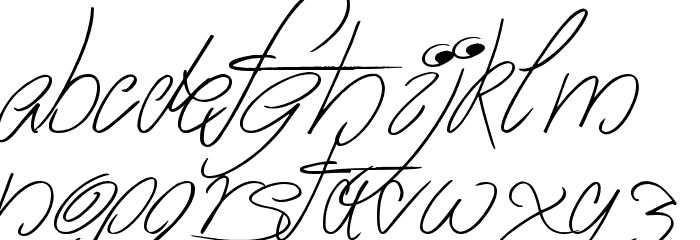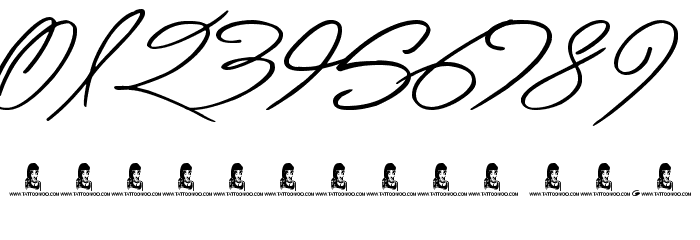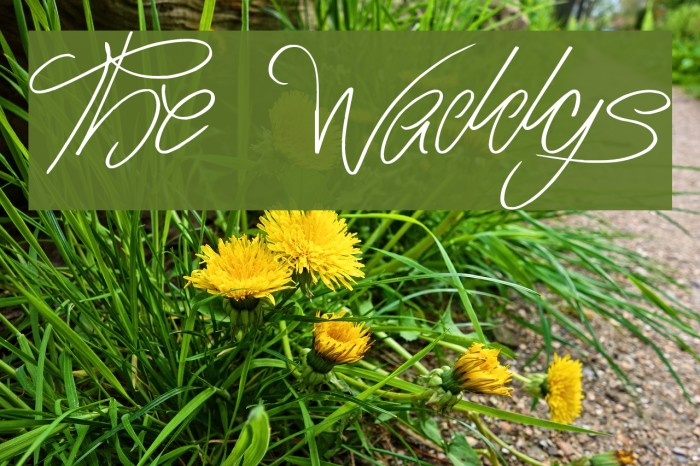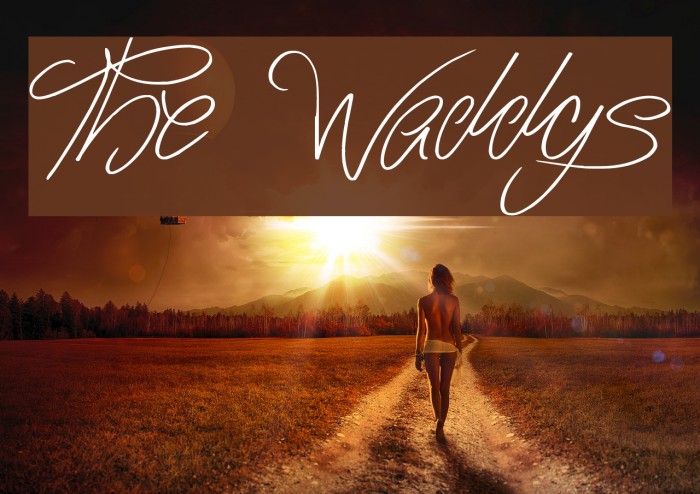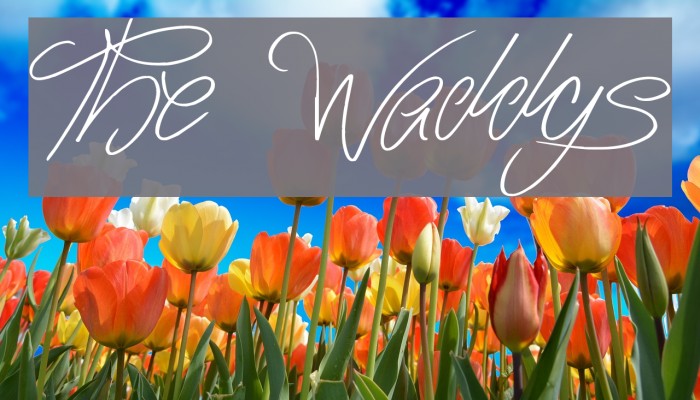
The Waddys Font
This font features an elegant, flowing script style with a handwritten appearance. The characters are connected, creating a sense of continuity and fluidity. The uppercase letters are slightly more ornate, with loops and swirls that add a decorative touch. The lowercase letters maintain a consistent slant, enhancing the cursive feel. Numbers and special characters are designed to match the overall aesthetic, with similar curves and lines. The font's thin strokes and delicate curves give it a sophisticated and stylish look, suitable for artistic and personal projects.
A flowing, elegant script font with a handwritten style.
- Proposed Projects: Ideal for wedding invitations, greeting cards, personal branding, and artistic projects.
- Character Spacing: Tight
- Use Case: Logos, Invitations, Artistic projects